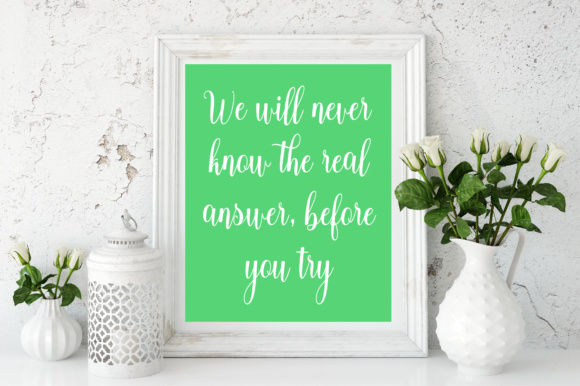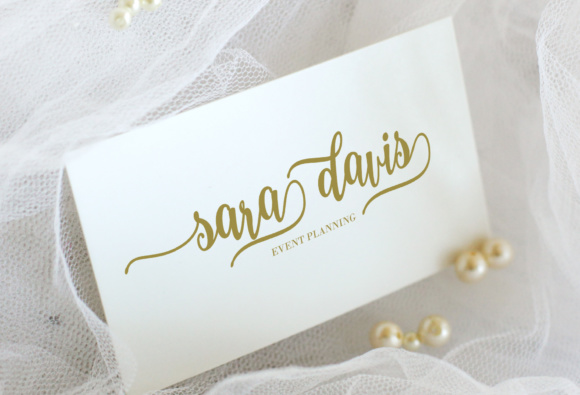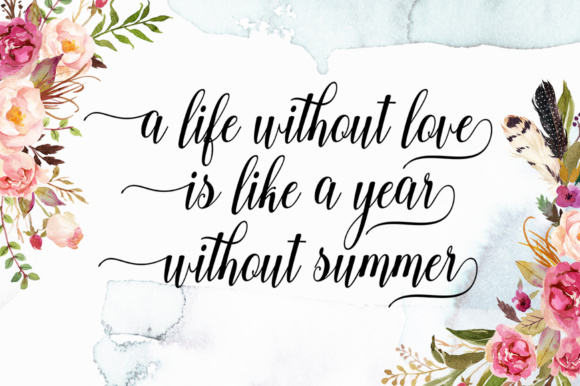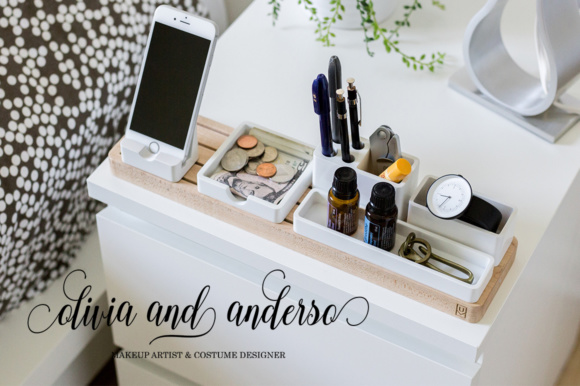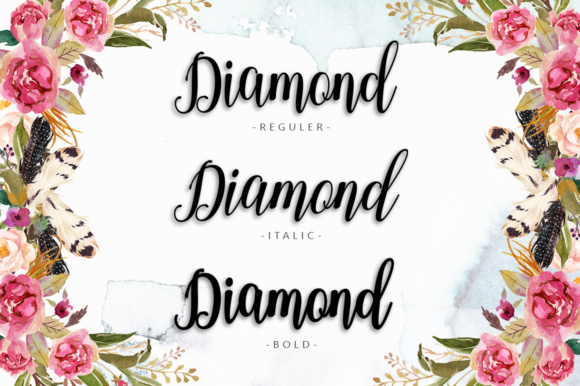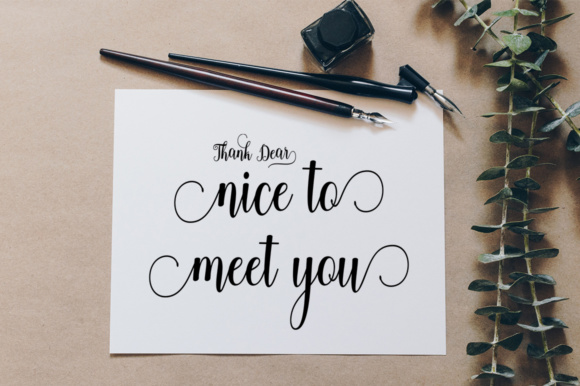
Diamond Font: Elevate Your Designs with a Sweet Hand-Lettered Style
Are you looking for a font that can add a touch of elegance and playfulness to your designs? Look no further than the Diamond Font, a beautiful hand-lettered script that’s perfect for a wide range of creative projects. In this article, we’ll explore the features and benefits of the Diamond Font, and show you how it can elevate your branding, logos, greeting cards, wedding stationery, and more.
What is Diamond Font?
Diamond Script is a sweet hand-lettered font that’s casual, dynamic, and full of personality. Its dancing baseline gives it a lively feel, making it perfect for designs that need a touch of whimsy and charm. With three different styles to choose from, Diamond is a versatile font that can be used in a variety of contexts.
Key Features of Diamond Font
- Hand-lettered style: Diamond Font is a carefully crafted hand-lettered script that gives it a unique and personal touch.
- Three different styles: With three styles to choose from, you can mix and match to create a look that’s all your own.
- Dancing baseline: The font’s dancing baseline gives it a lively, dynamic feel that’s perfect for designs that need to stand out.
- Casual and dynamic: Diamond Font is perfect for designs that need a touch of playfulness and whimsy.
Uses for Diamond Font
Diamond Font is a versatile font that can be used in a wide range of creative projects, including:
- Branding: Use Diamond Font to create a unique and memorable brand identity that stands out from the crowd.
- Logos: The font’s bold, dynamic style makes it perfect for logos that need to make a statement.
- Greeting cards: Add a touch of elegance and whimsy to your greeting cards with Diamond Font.
- Wedding stationery: Make your wedding stationery truly special with the beautiful, hand-lettered style of Diamond Font.
- Quotes: Use Diamond Font to add a touch of personality and style to your quotes and social media posts.
Tips for Using Diamond Font
Here are a few tips for getting the most out of Diamond Font:
- Experiment with different styles: Try mixing and matching the three different styles to create a look that’s all your own.
- Play with color: Diamond Font looks great in a wide range of colors, so don’t be afraid to get creative and try out different hues.
- Use it sparingly: Because Diamond Font is so bold and dynamic, it’s best to use it sparingly to avoid overwhelming your design.
Why Designers and Crafters Love Diamond Font
Diamond Font has quickly become a favorite among designers and crafters, and it’s easy to see why. Here are just a few reasons why:
- Unique and personal style: Diamond Font has a unique, hand-lettered style that gives it a personal touch.
- Versatility: With three different styles to choose from, Diamond Font can be used in a wide range of creative projects.
Diamond Font is a beautiful, hand-lettered script that’s perfect for designers and crafters who want to add a touch of elegance and whimsy to their designs. With its three different styles, dancing baseline, and casual, dynamic style, Diamond Font is a versatile font that can be used in a wide range of creative projects. Whether you’re creating branding, logos, greeting cards, wedding stationery, or quotes, Diamond Font is sure to elevate your designs and help you stand out from the crowd.